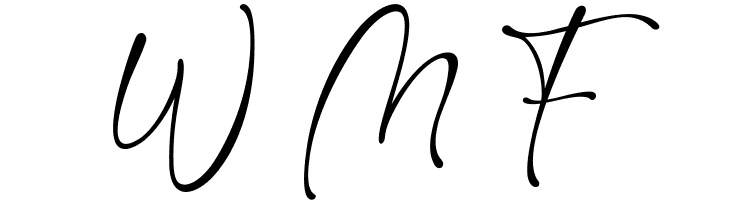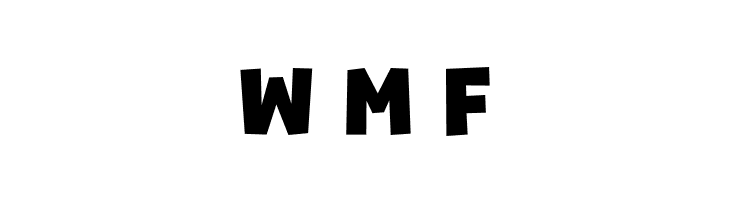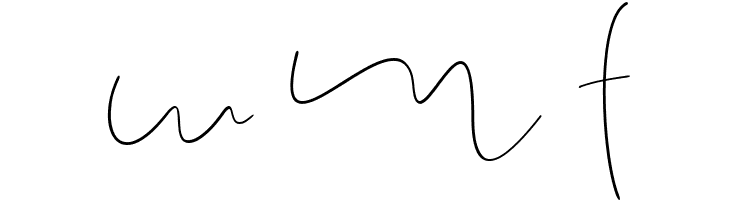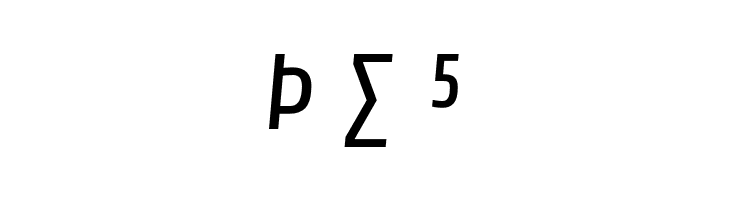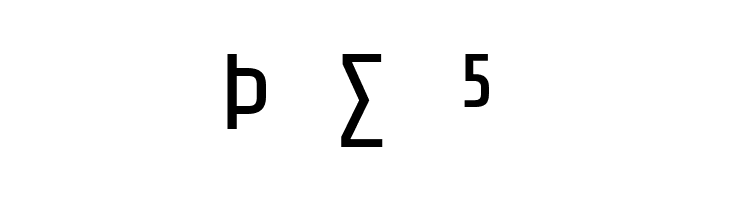
A bold, classic serif font with high contrast and elegant details.
A high-contrast serif font with elegant, sharp serifs and a classic style.
A flowing, cursive script font with elegant, interconnected characters.
A bold, angular font with a geometric and edgy design.
A playful, handwritten-style font with fluid, continuous strokes.
A bold, italicized font with expanded width, perfect for modern and impactful designs.
A modern italic font with slanted, streamlined letterforms and medium contrast.
A modern, italicized font with clean lines and balanced proportions.
A modern, monospaced font with a technical and geometric design.
A bold, modern font with clean lines and geometric structure.